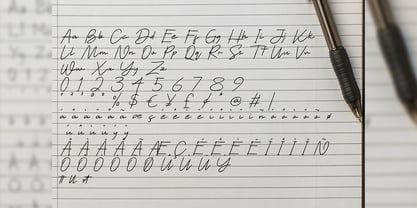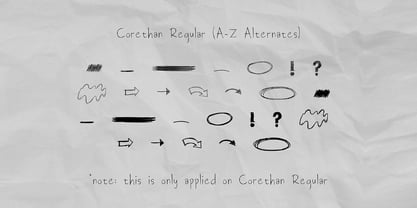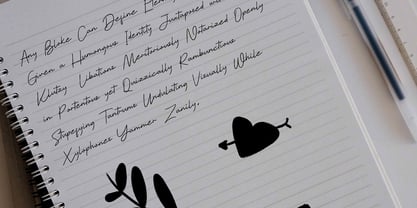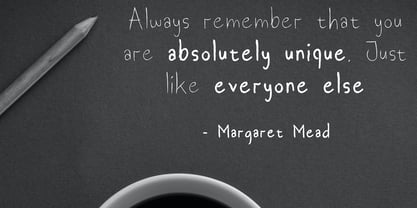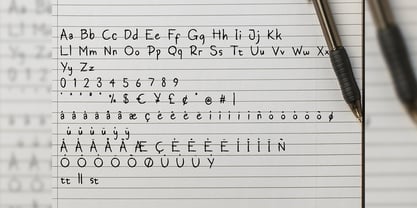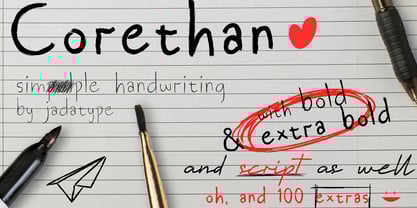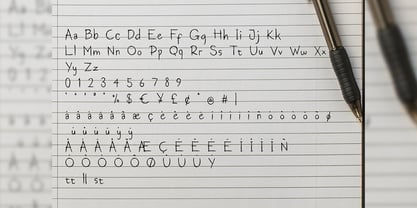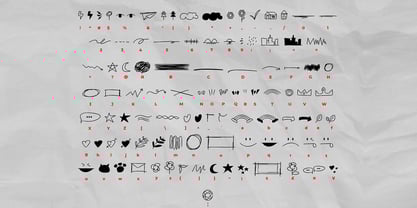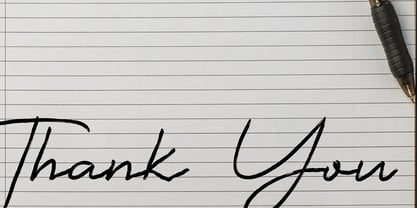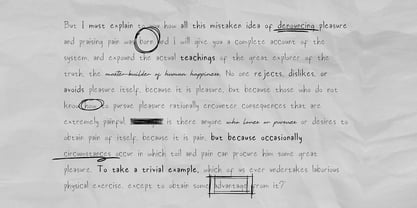
Corethan
by Jadatype
The Corethan Font Family was designed by Jada Akbal and published by Jadatype. Corethan contains 5 styles. More about this family
Corethan is a display font with a natural handwriting style. suitable for social media, event, craft, advertisements, and so on. contains standard English letters, numbers, punctuation, alternates and several accents that support multilingualism.
Designers: Jada Akbal
Foundry: Jadatype